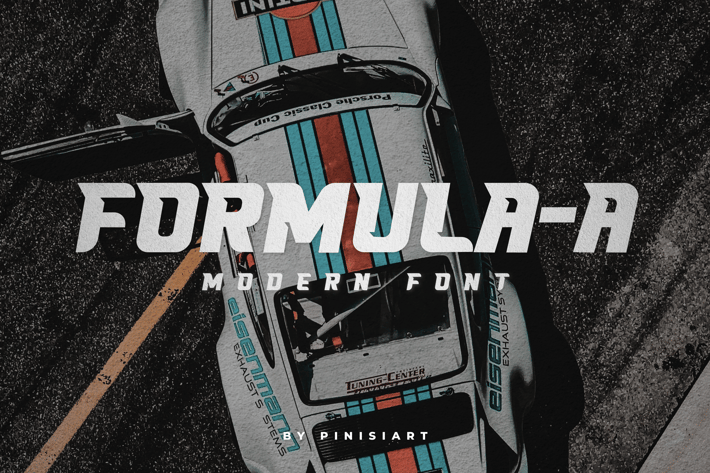
FORMULA A - Modern Font
Fast and competition world, FORMULA A is putting the hammer down on the throttle. The racing world will embrace this without a thought.
Suit perfect for racing books market, online games, sport event posters, school supplies font, poster, movie title, youtube covers, youtube thumbnails, social media page covers, and so on...